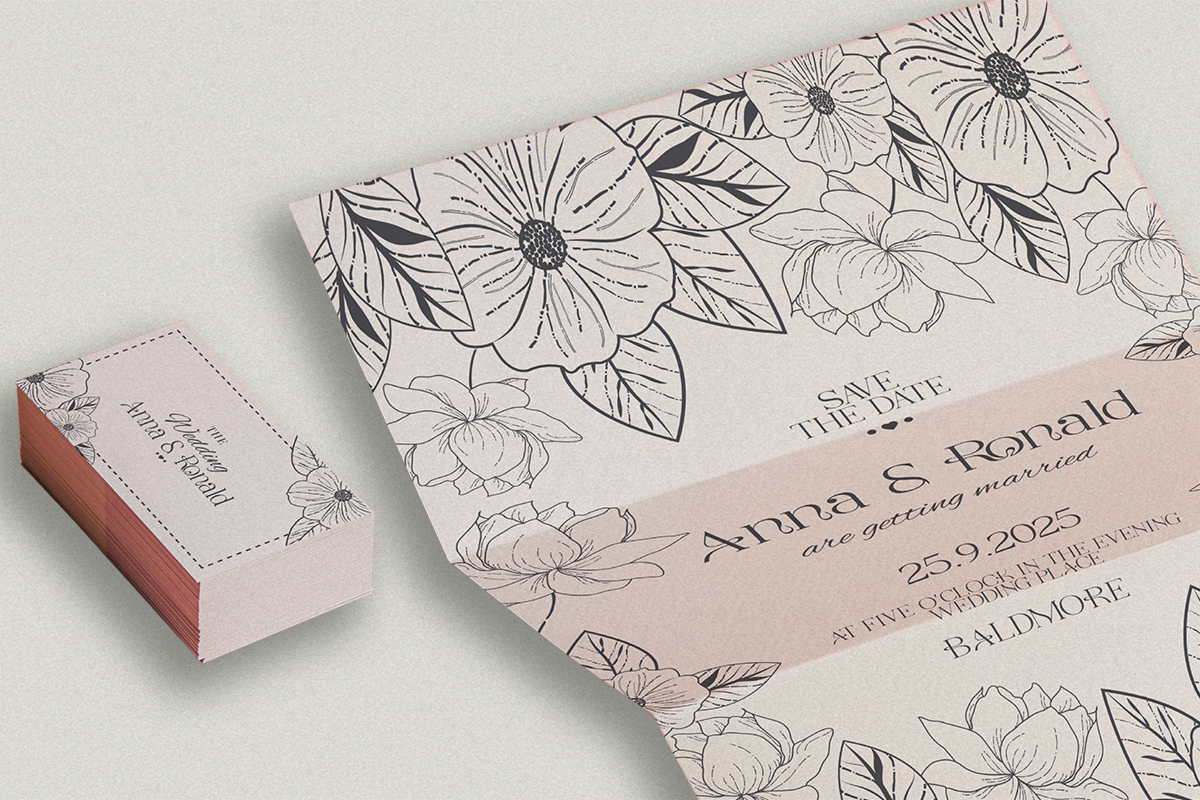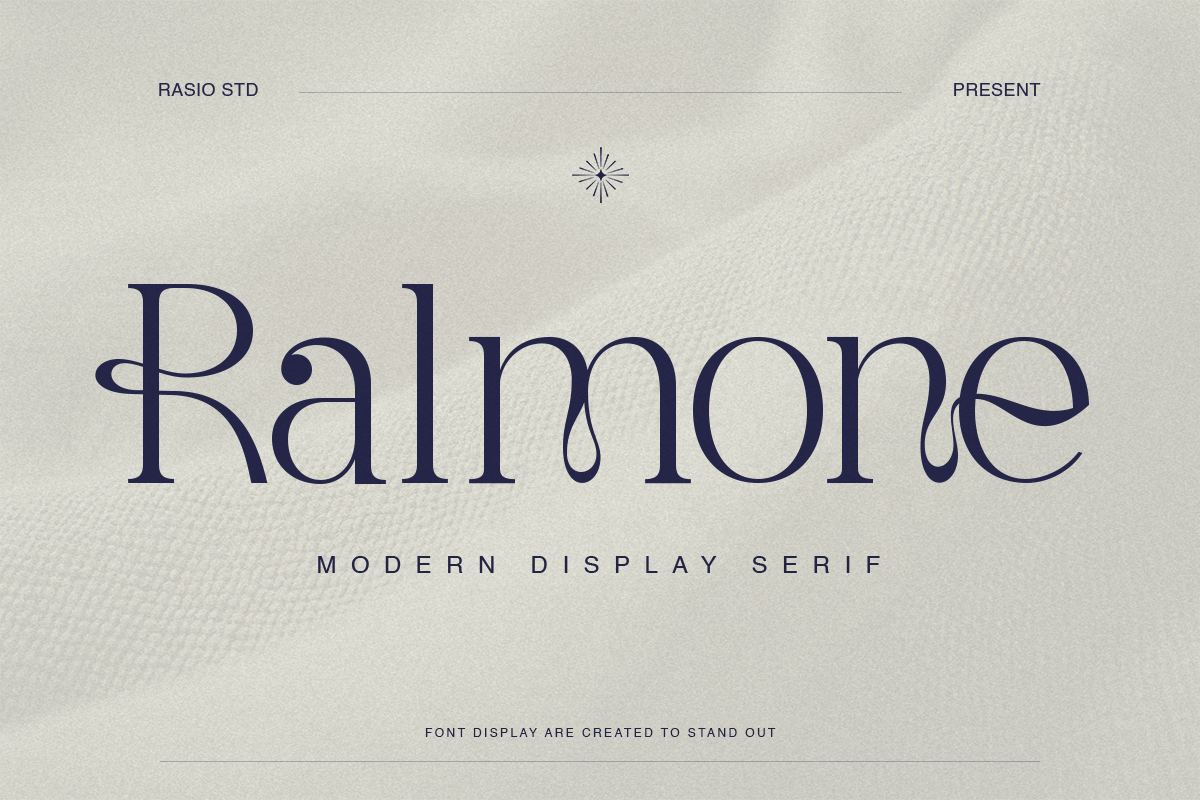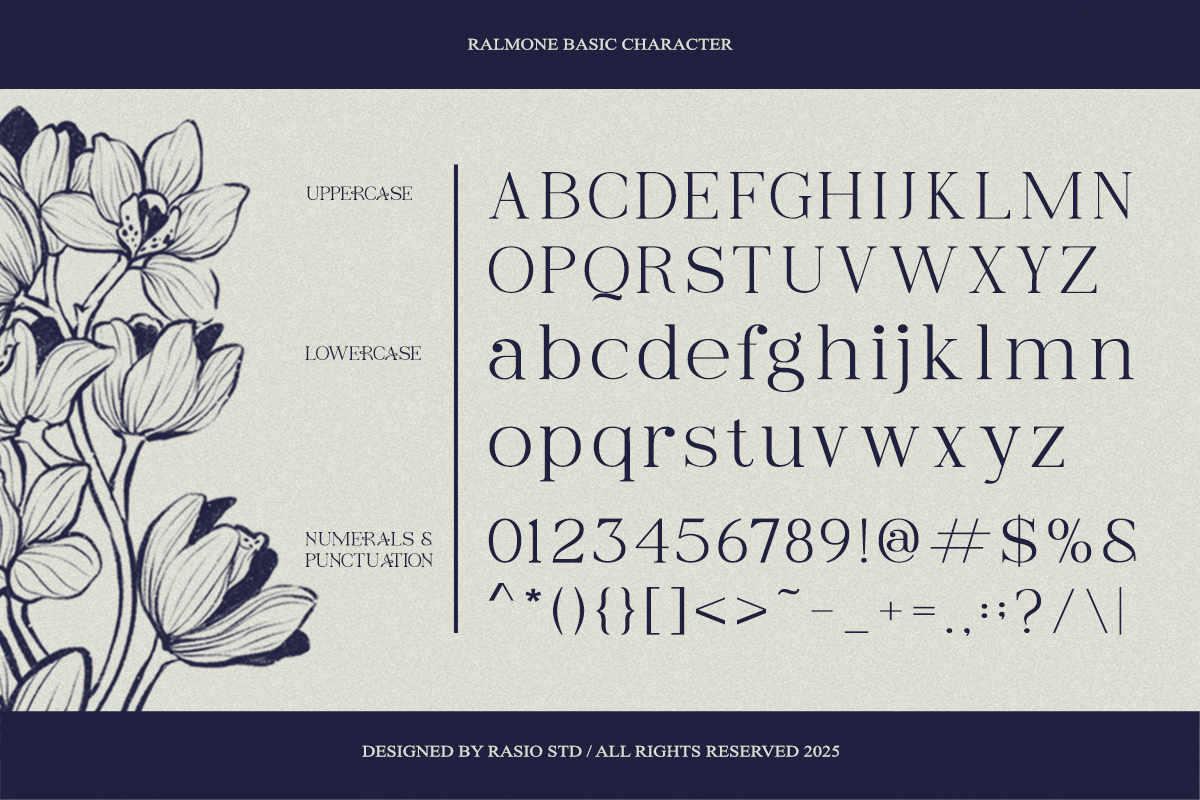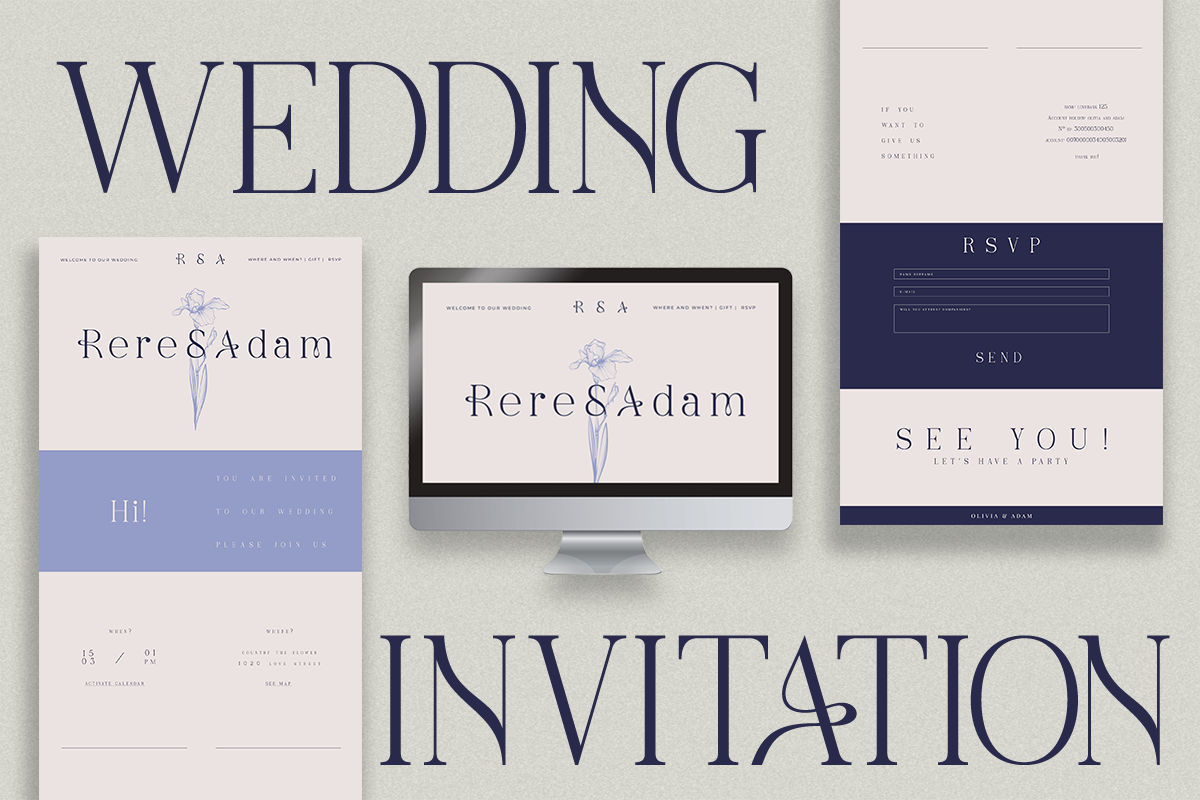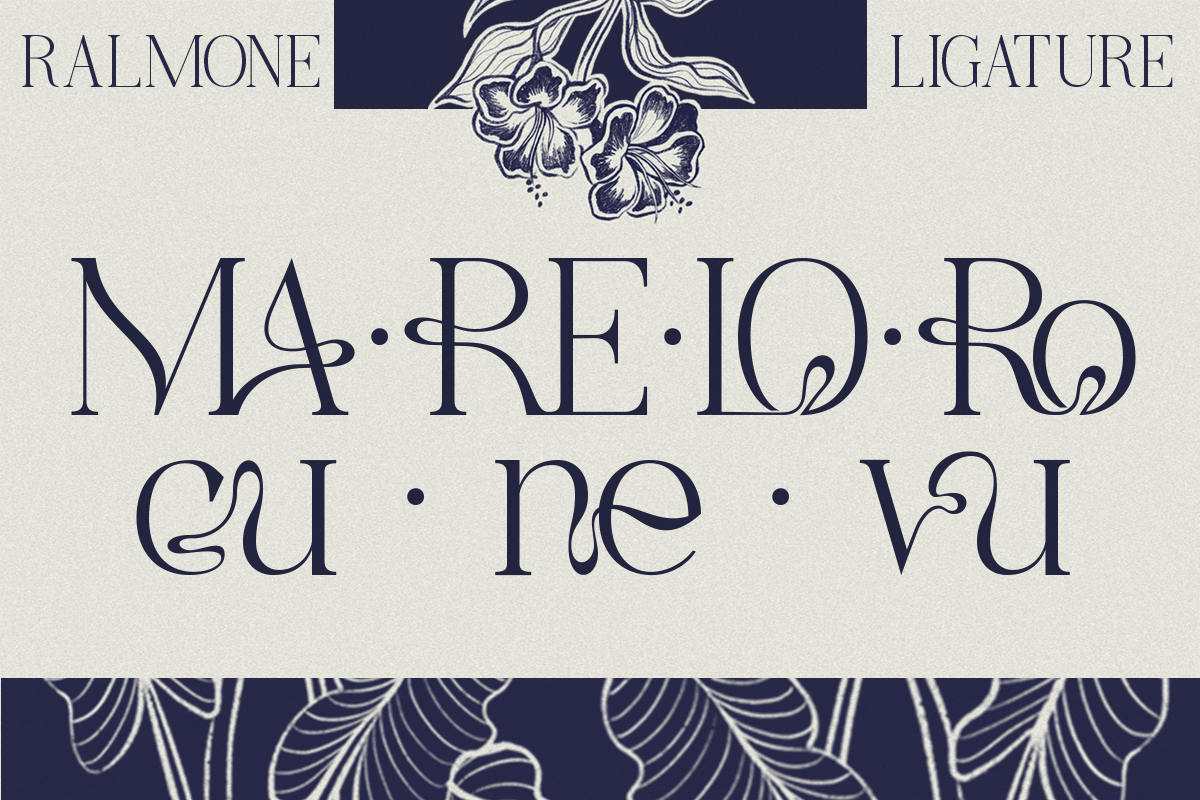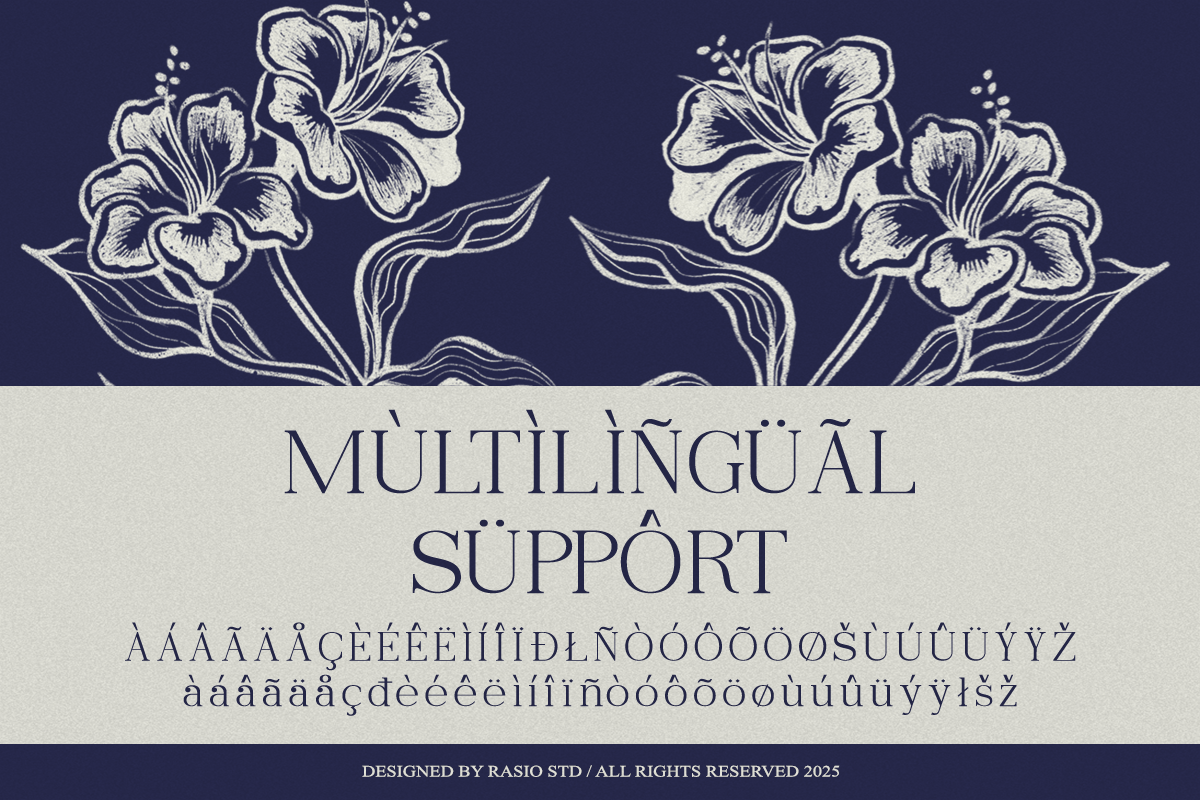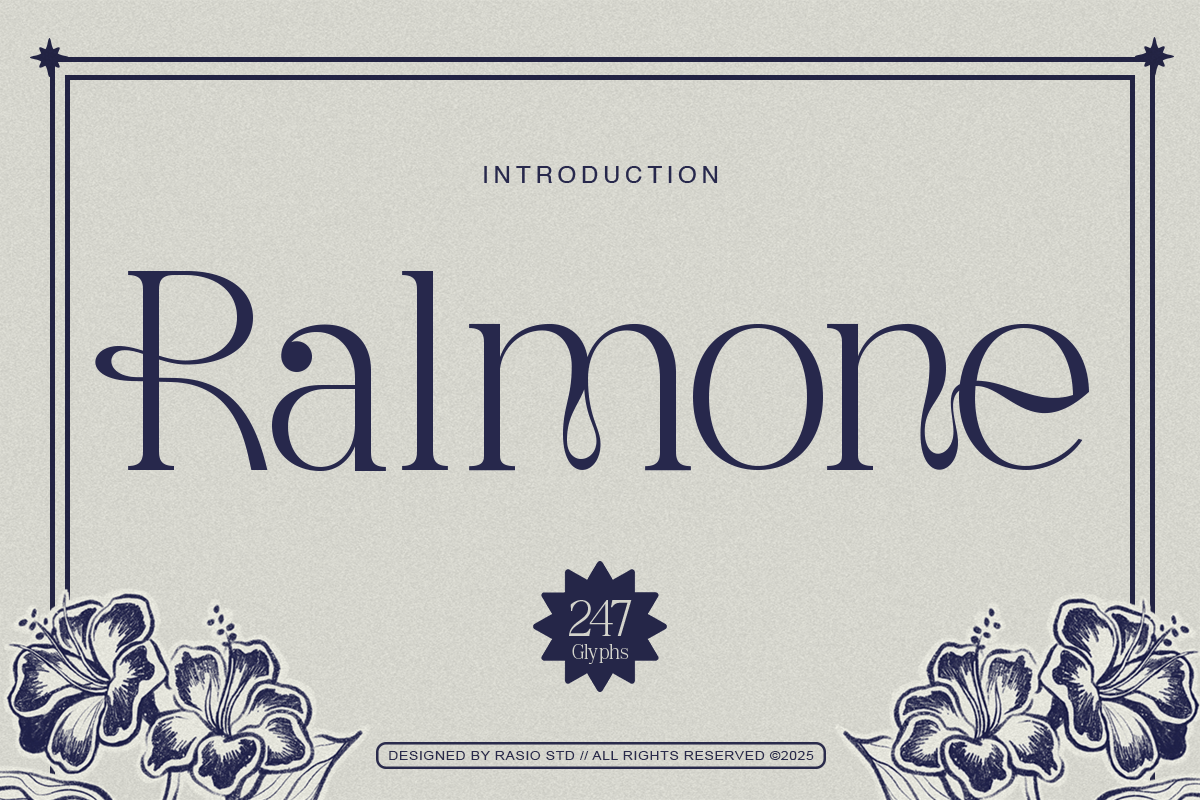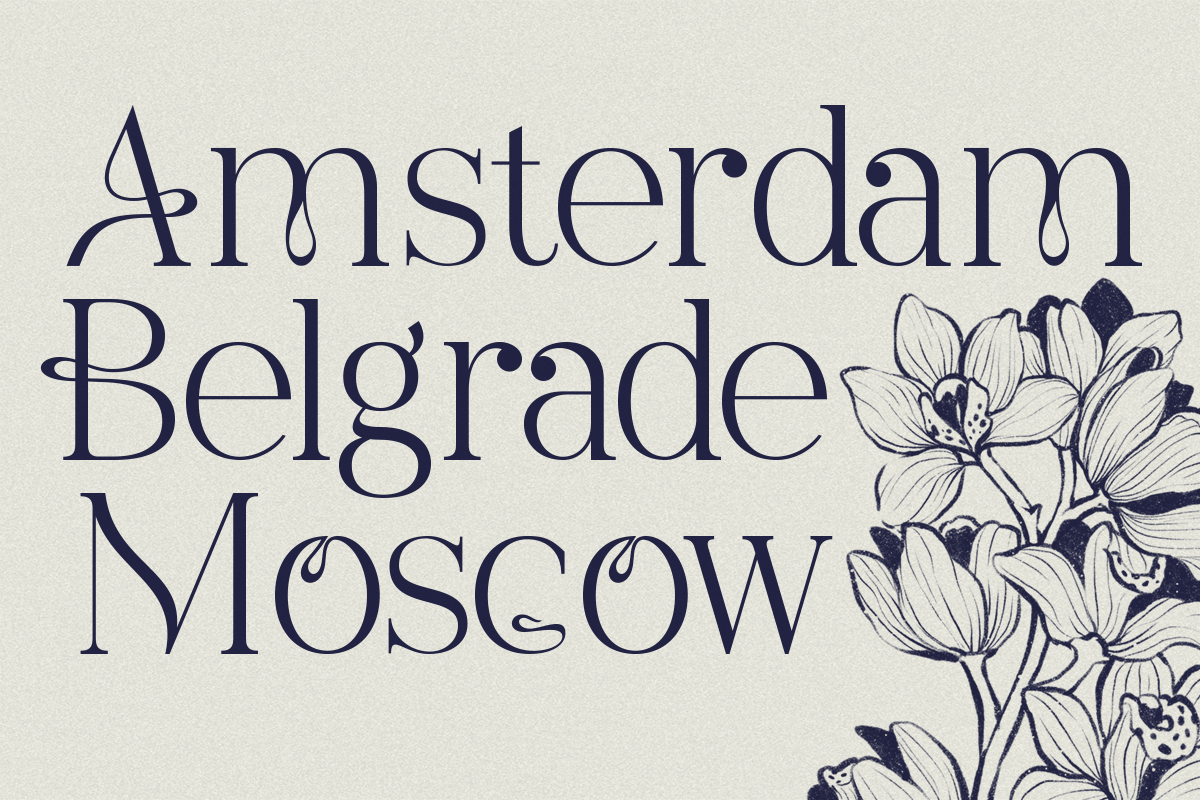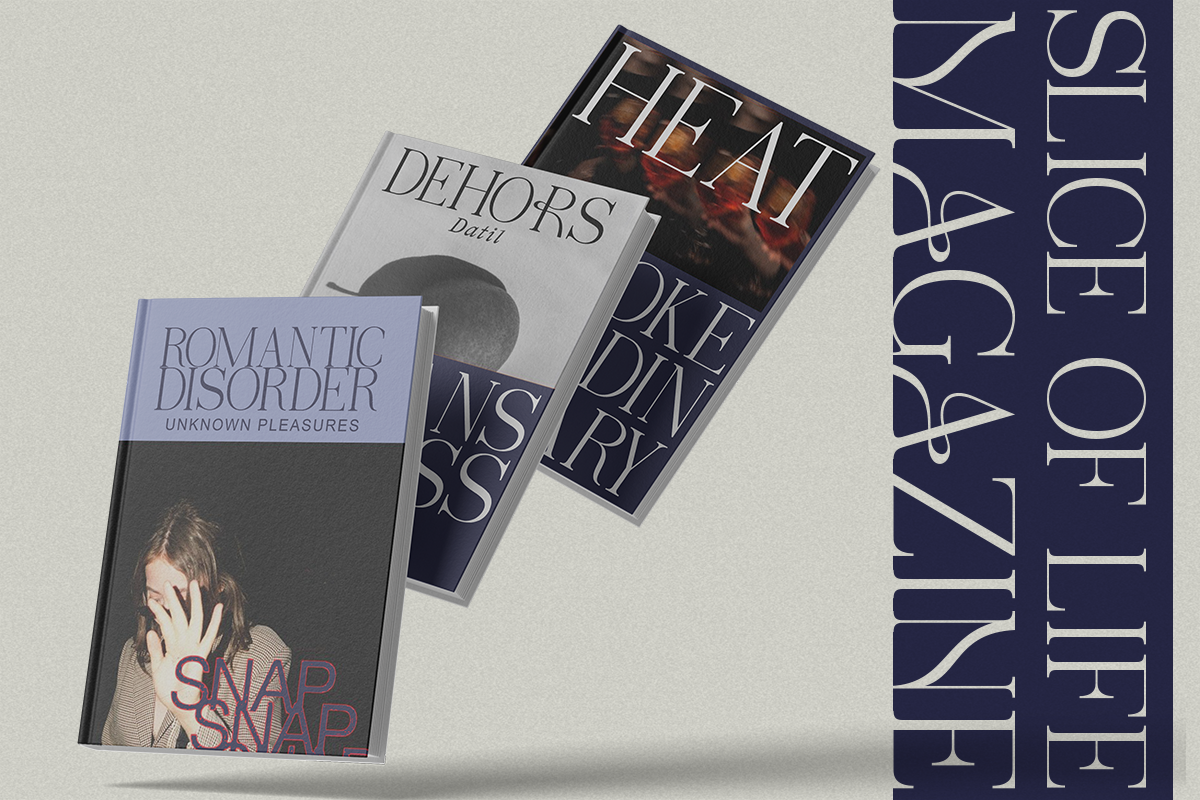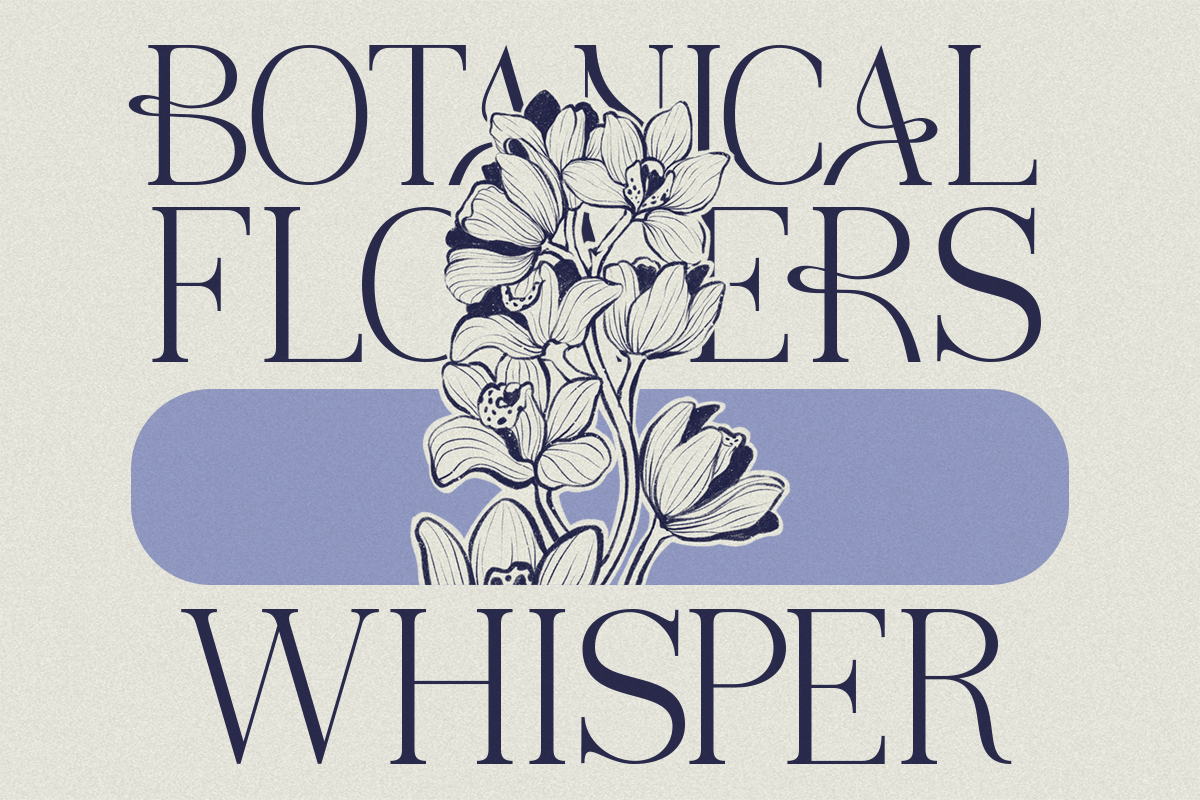
Ralmone Modern Display Serif Font
Ralmone is a refined modern display serif typeface that combines timeless elegance with contemporary sophistication. Its high contrast letterforms and graceful curves are enhanced by distinctive swashes and signature ligatures that create a luxurious and artistic impression. This typeface includes a complete character set featuring uppercase and lowercase letters, punctuation, numerals, and a variety of unique alternate glyphs.
Relevance & Use Cases is perfect for any design that demands attention with sophistication. From high-end fashion branding to lifestyle magazines and boutique packaging, this typeface adds an instant sense of refinement and visual charm. Its bold elegance makes it a great option for editorial use, promotional headlines, personal branding projects, and premium product presentations.
- Elegant modern serif with high contrast strokes and refined proportions
- Soft curved terminals combined with delicate sharp serifs for a graceful feel
- Subtle calligraphic influence in select characters adding a luxurious touch
- Balanced letterforms with smooth rhythm for clear and sophisticated readability
- Generous spacing that enhances clarity for both display headlines and editorial text
- Luxury brand identity systems with refined and elegant visual direction
- Editorial magazines, fashion spreads, and high-end book layouts
- Beauty, skincare, and fragrance packaging with premium aesthetics
- Wedding invitations, event stationery, and romantic visual themes
- Social media content for lifestyle, fashion, and luxury branding